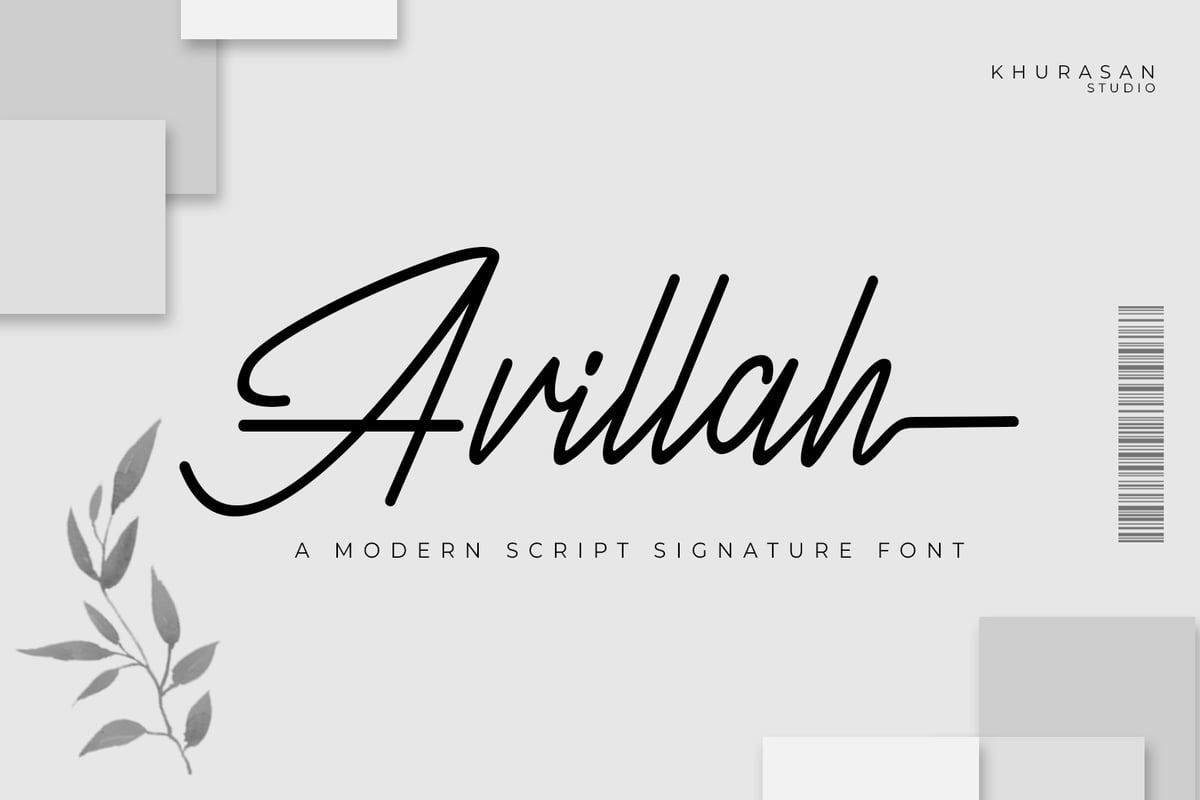
Avillah - A Modern Script Signature Font
Avillah is a flowing script signature font that brings authentic hand-lettering elegance to any design project.
Every stroke feels alive — smooth, expressive, and full of personality. Avillah delivers a genuine handwritten charm that makes your designs feel warm, stylish, and premium without sacrificing readability or refinement.